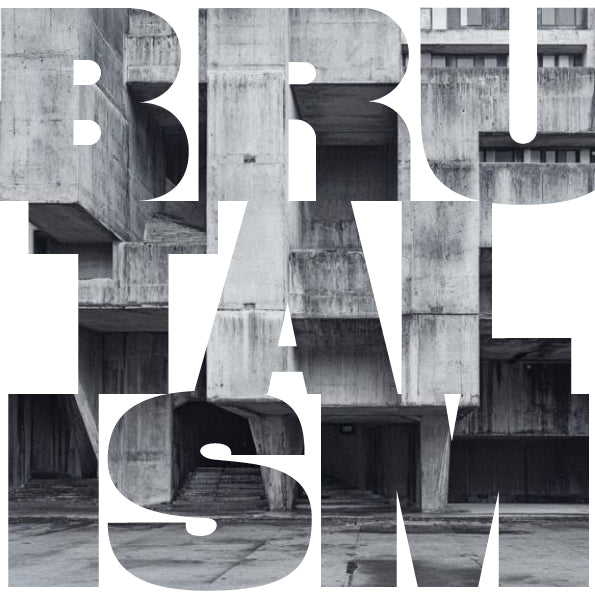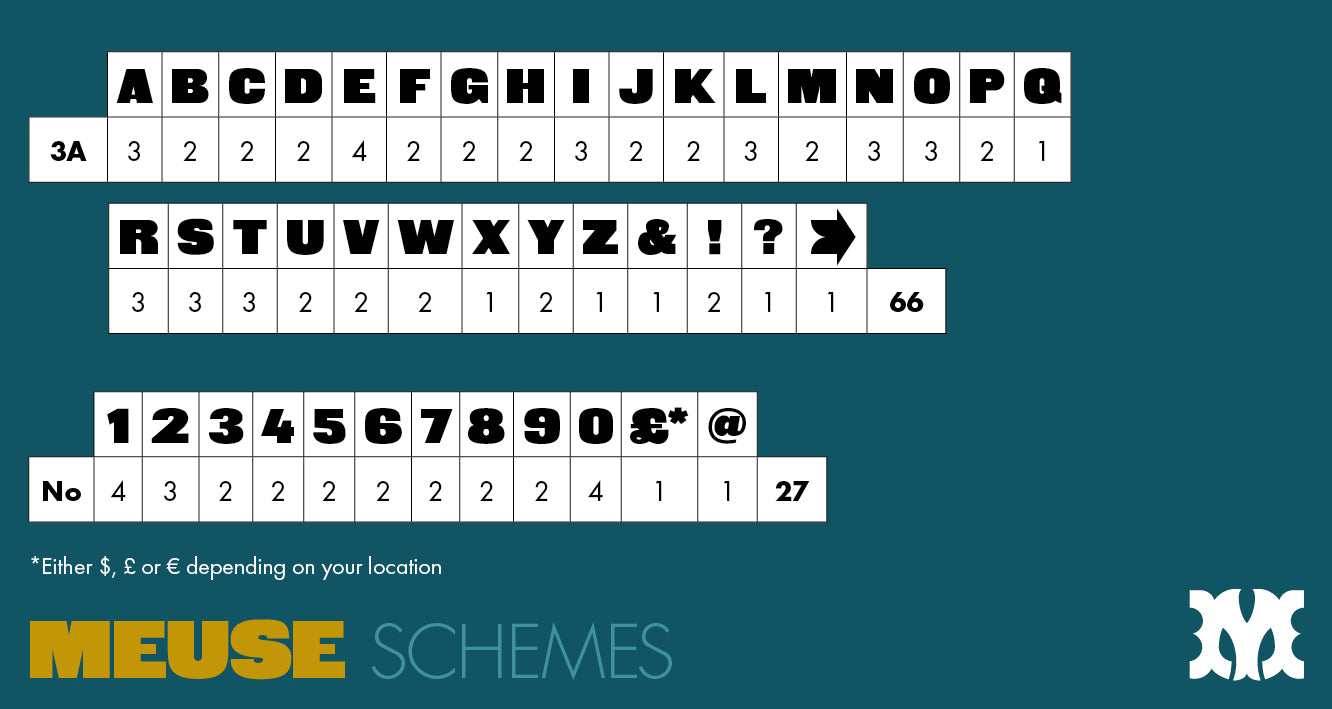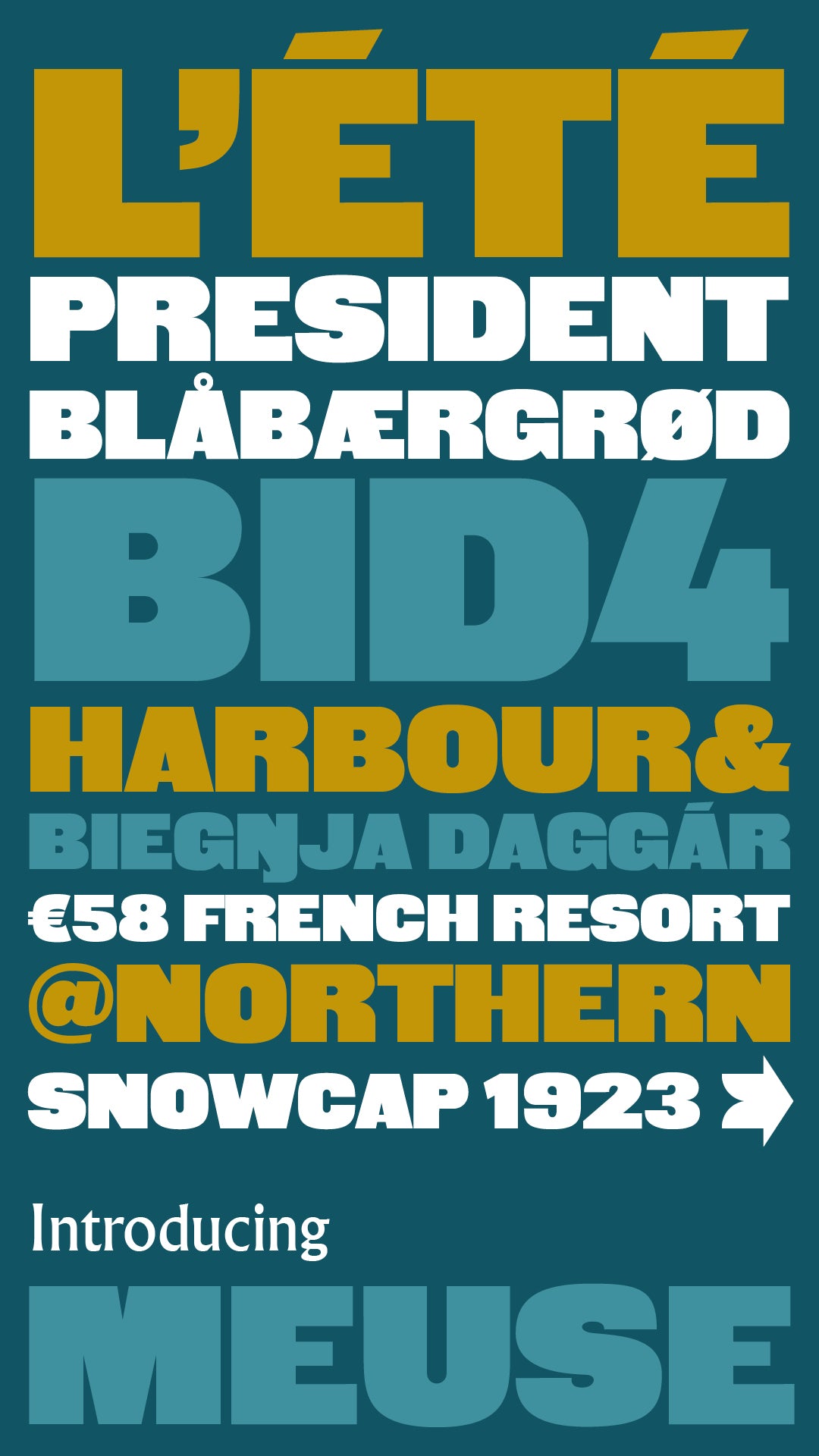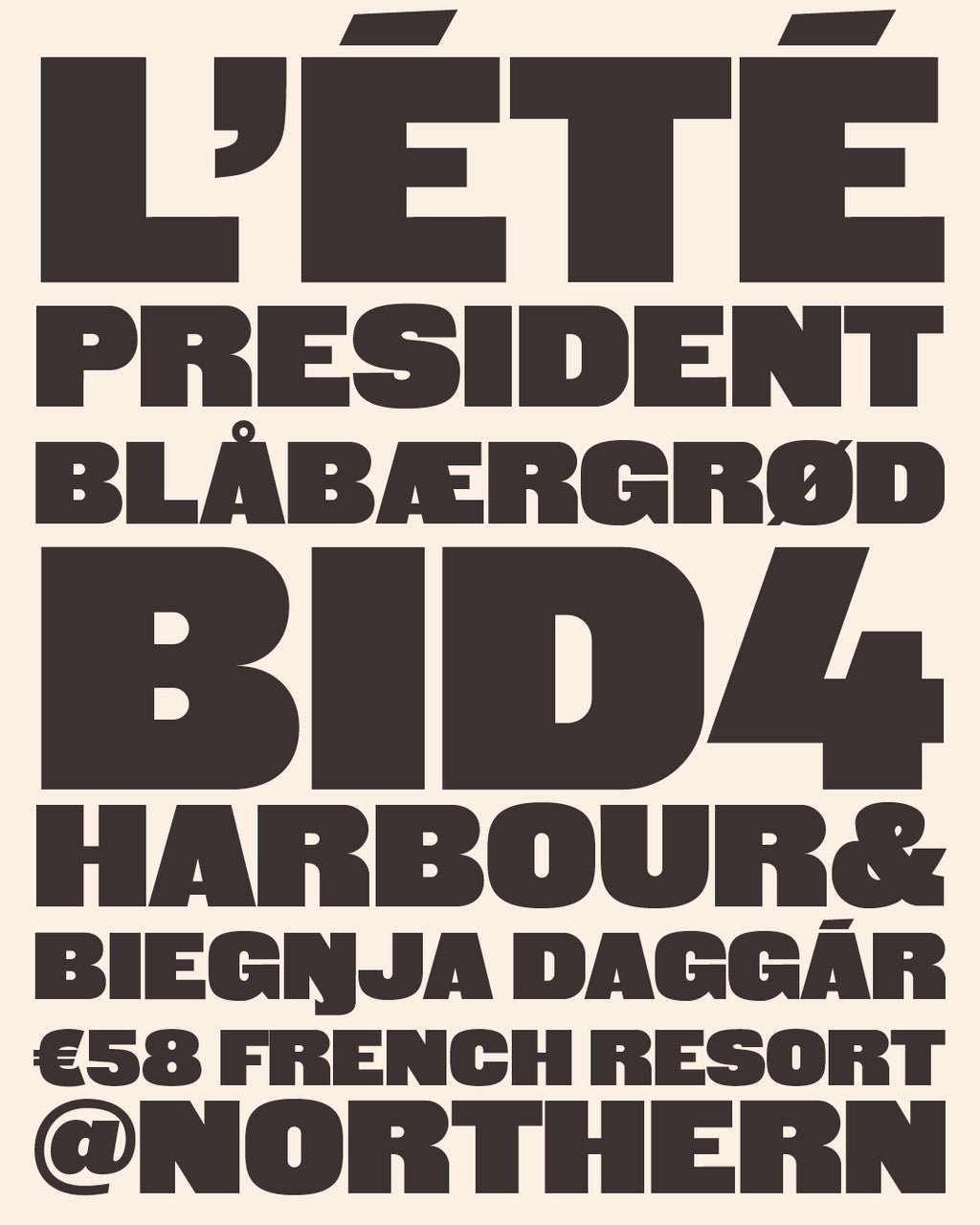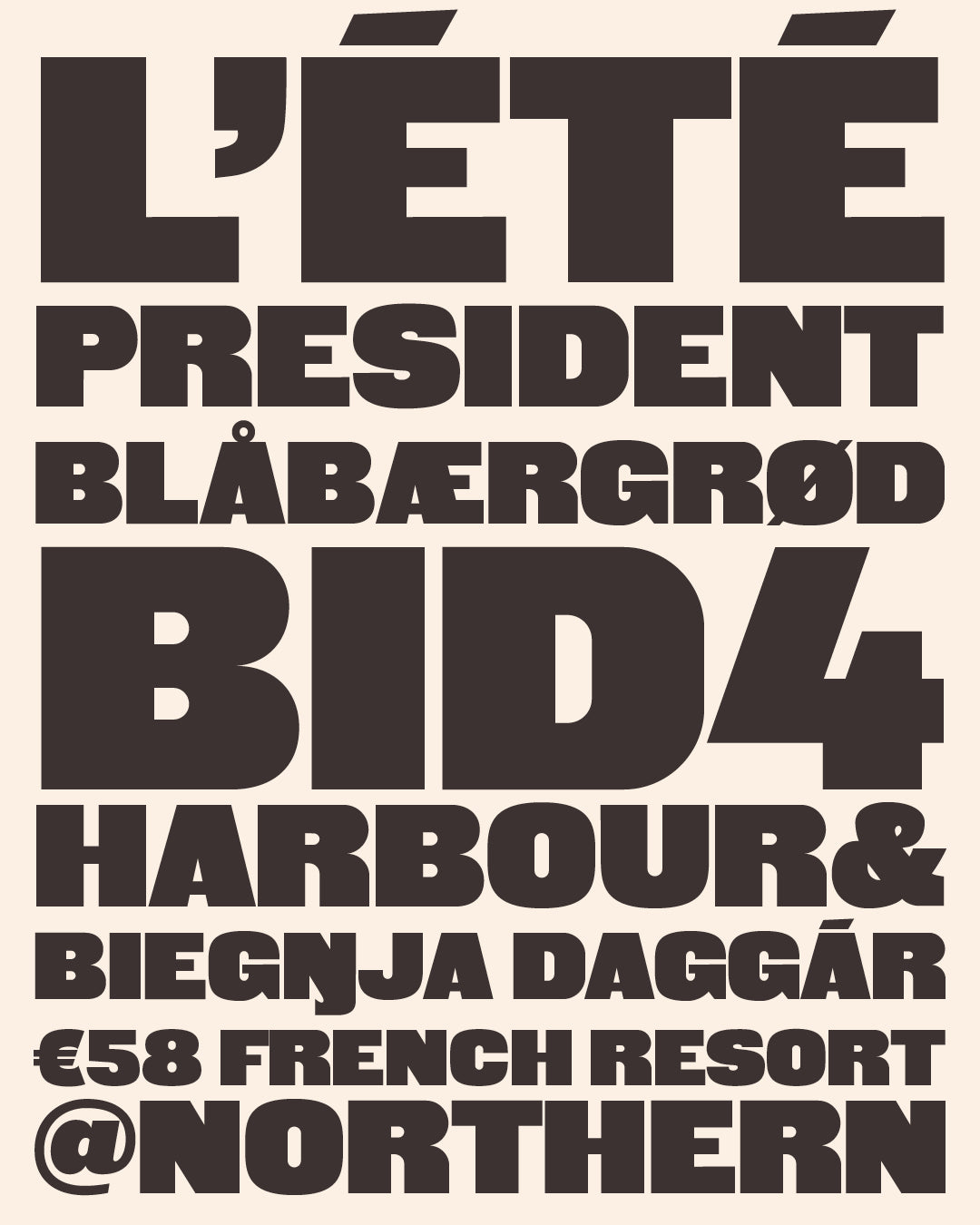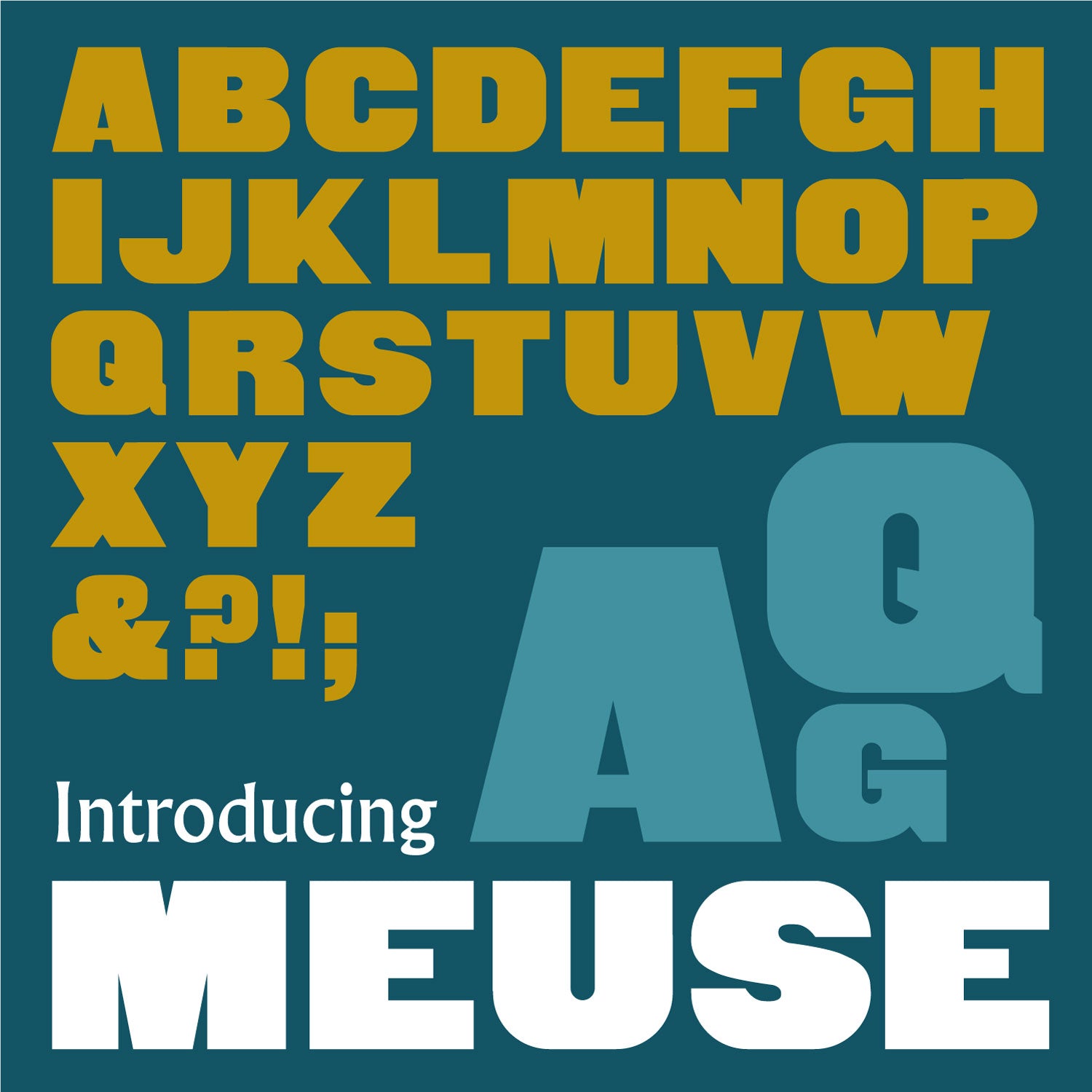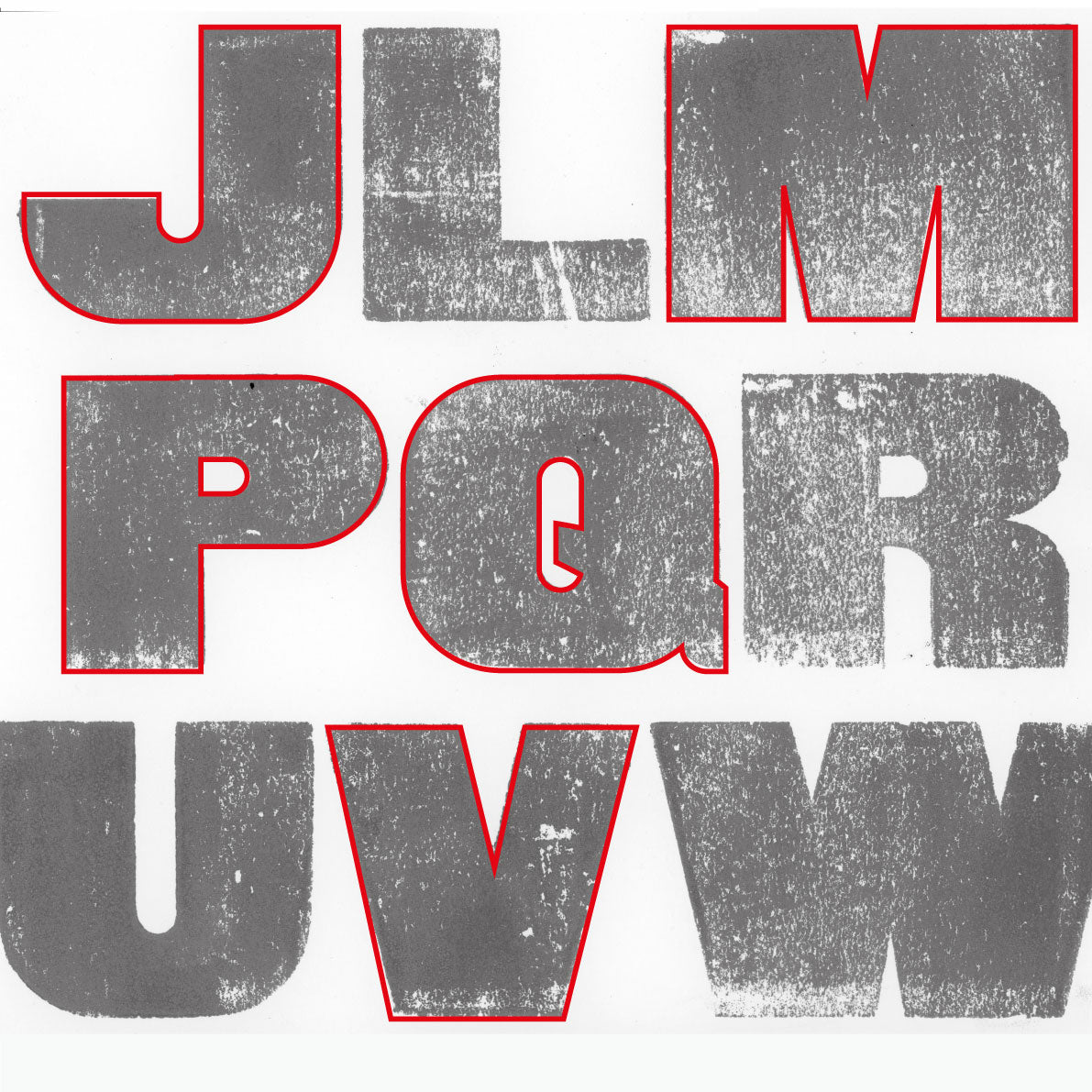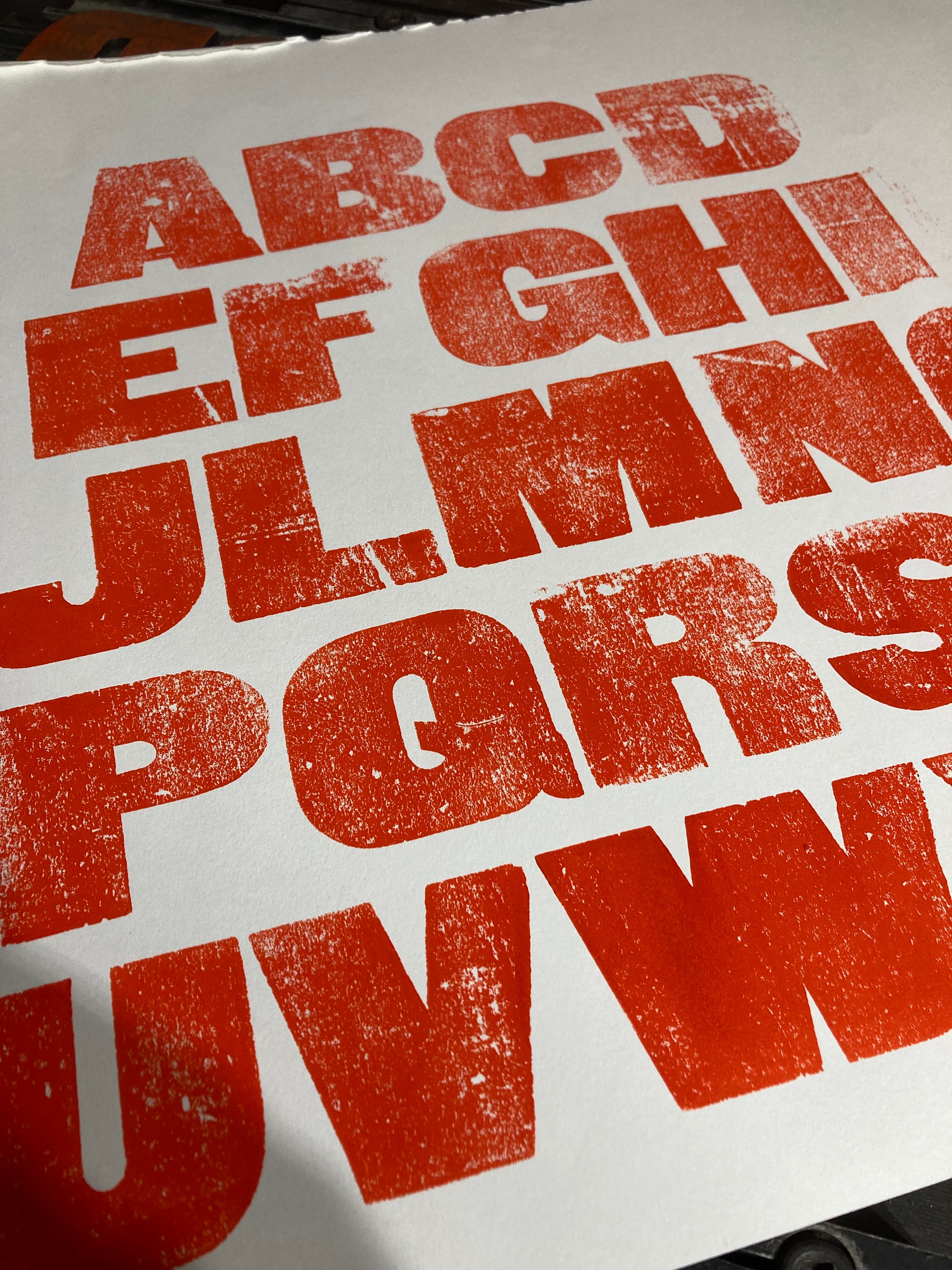
'Meuse' letterpress woodtype typeface
Introducing 'Meuse' - a redrawing of letterpress type rescued from Meuse in France.
10 line (42.3mm) cut from end grain English hardwood using a combination of modern CNC technology and traditional hand woodworking tools (including an original printers saw), made to English type-high (0.918in or 23.3mm) within plus or minus 0.1mm tolerance, sealed with shellac and hand finished with a traditional polished printing surface.